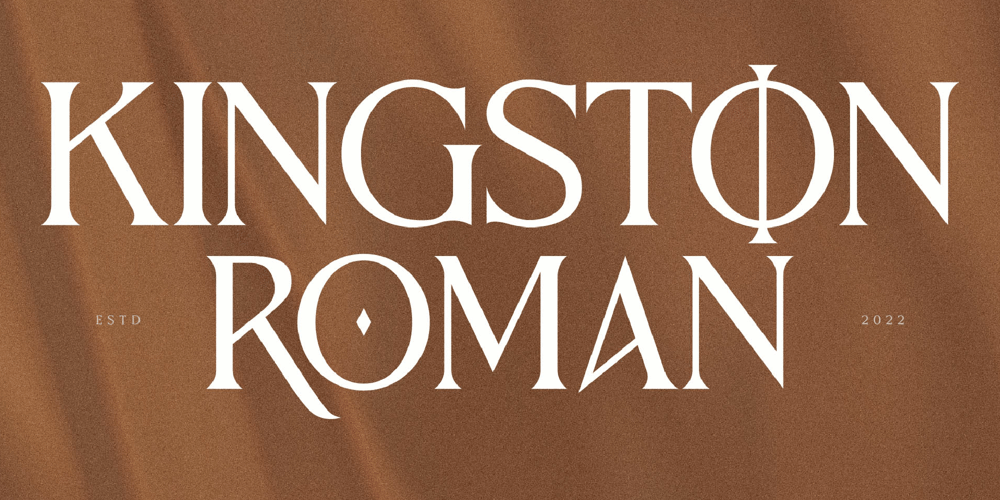
Kingston Roman
Kingston Roman font
Kingston Roman Font Family was designed by Heru Utama Putra and published by Letterena Studios. Kingston Roman contains 2 styles and family package options. Kingston Roman is a modern and classic serif typeface with a unique style and fancy look. This typeface is perfect for an elegant & luxury logo, book or movie title design, fashion brand, magazine, clothes, lettering, quotes, and so much more.**Uppercase